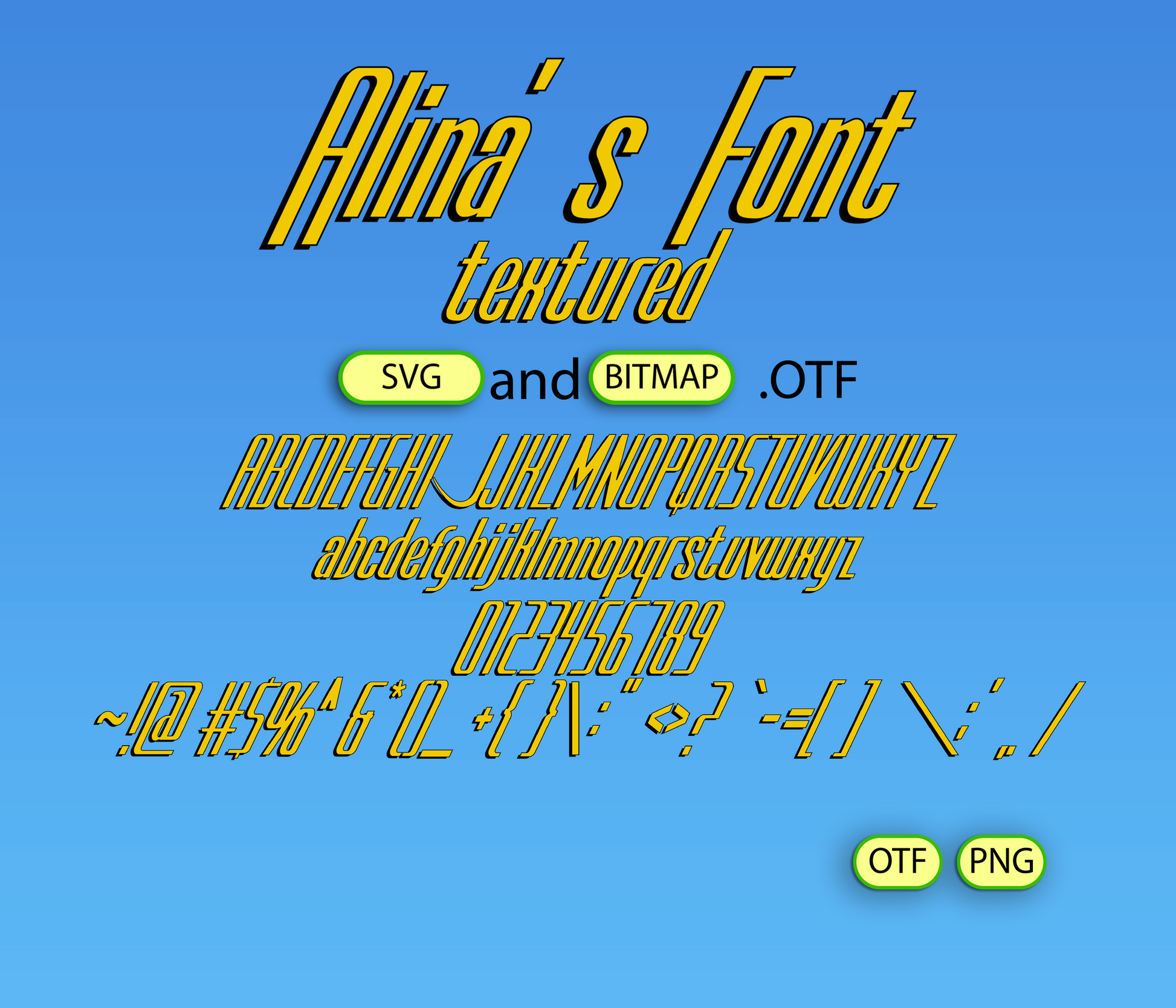
Futuristic Flying Family Font Textured
Step into the whimsical world of tomorrow with our Futuristic Flying Family font, capturing the essence of a beloved space-age cartoon family. Perfect for retro-futurism enthusiasts, animators, event planners, and designers, this font brings the quirky, optimistic spirit of a iconic futuristic household to your projects. Create event invitations, themed merchandise, or digital content with the playful energy of this remarkable family's skyborne adventures.
Our Futuristic Flying Family font features sleek, space-age lines and bubbly characters reflecting the optimistic vision of the future from this classic animated series. Ideal for:
Our Futuristic Flying Family font includes textured and non-textured variants, ensuring compatibility with all software, including Canva. This feature allows easy incorporation into designs for users of all skill levels.
Our font pays tribute to the legendary cartoon, empowering your designs with its optimistic and futuristic spirit. Whether crafting promotional materials, designing merchandise, or adding a playful touch to personal projects, this font communicates the cheerful essence of this space-age family. Ready to inject retro-futurism into your creations? This font is your key to exciting, impactful design.